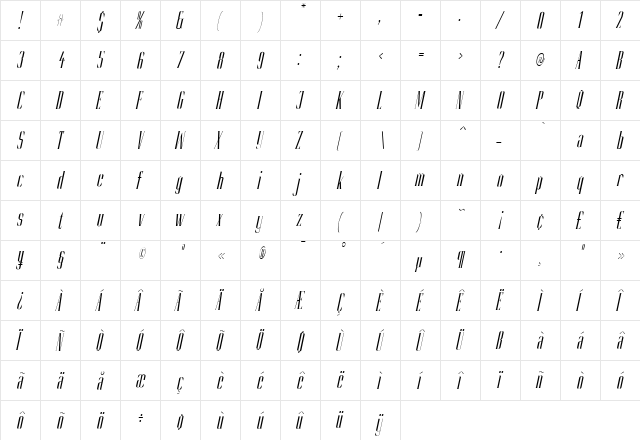
Slim Kim Light Italic
Design Context for Slim Kim Light Typeface
Slim Kim Light takes a measured approach to typography — its balanced proportions and neutral character make it a reliable workhorse for both digital and print work. The slanted form adds forward momentum and visual energy. The delicate stroke weight brings airiness and refinement to layouts.